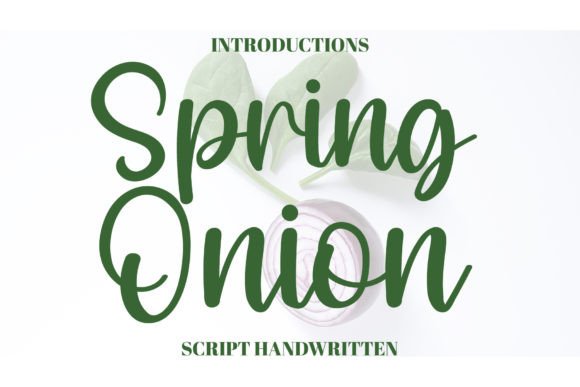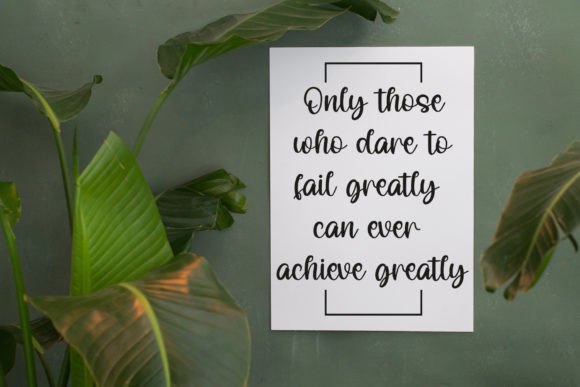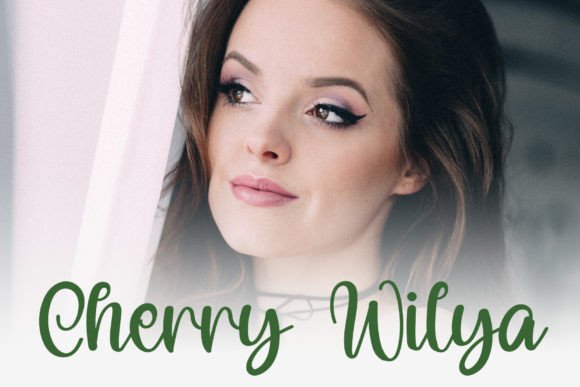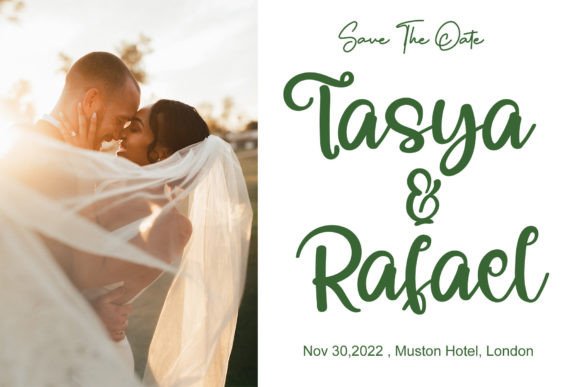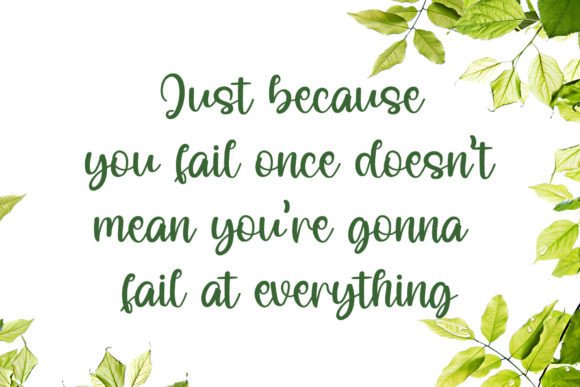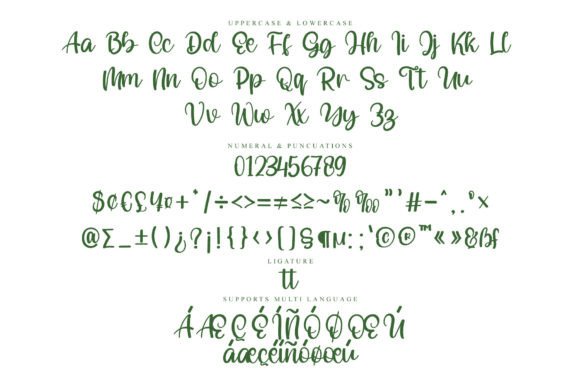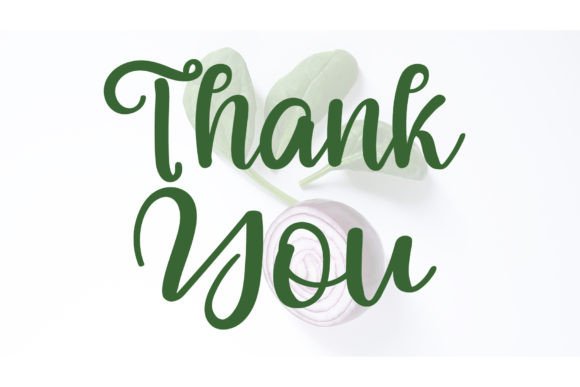
Spring Onion Font
About Spring Onion Font
Add a Magical Touch with Spring Onion Font
If you’re searching for a handwritten font that adds charm and sophistication, the Spring Onion font download is your perfect pick. Designed with grace and fluidity, this font brings a magical quality to your creative projects. Whether you’re crafting wedding invitations or designing Instagram posts, this font makes your ideas feel polished and personal.
Elegant Style for Versatile Use
Spring Onion blends delicate strokes with smooth curves, creating a flowing script that’s as easy to read as it is beautiful. Thanks to its soft aesthetic, this font works well for a wide range of applications. You can use it for branding, product packaging, greeting cards, quotes, and much more. As a result, your projects will gain a unique and heartfelt appearance.
Easy Access and Creative Freedom
Make Every Message Feel Special
Typography can influence how people feel about your content. That’s why the Spring Onion font works so well for designers who want to create a memorable experience. Its handwritten form feels personal and inviting, while its consistent line quality ensures a professional result. Use it for DIY crafts, logos, blog headers, or social media graphics—it adds emotional warmth wherever it’s applied.
Why Choose the Spring Onion Font?
In summary, the Spring Onion font download offers a blend of beauty, simplicity, and flexibility. Whether you need to add elegance to a print layout or bring life to a digital design, this magical handwritten font delivers impressive results every time.